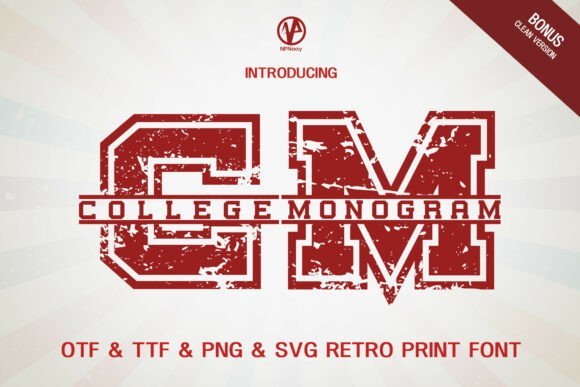
Adding a Touch of Vintage Charm to Your Designs
Have you ever stumbled upon an old college t-shirt or a vintage postcard that sparks a wave of nostalgia and creativity? For designers, moments like these can be a treasure trove of inspiration. The worn-out fonts, the distressed textures, and the overall retro vibe can be the perfect starting point for a new project.
Enter the College Monogram Font, a vintage and grunge-distressed display font that’s sure to add a unique touch to your designs. This font is designed to evoke the feeling of a bygone era, with its intricate details and worn-out look. By incorporating the College Monogram Font into your projects, you’ll be able to add a sense of history and character that’s hard to find with more modern fonts.
For designers looking to add some personality to their work, the College Monogram Font is a valuable tool. Its versatility and unique aesthetic make it perfect for a wide range of projects, from branding and advertising to editorial and lifestyle design.
College Monogram Font Key Features
- Unique Characteristics: Distinctive monogram design, with intricate details and flourishes, making it perfect for creating eye-catching logos and branding materials.
Review of College Monogram Font
I’ve had the chance to work with the College Monogram Font, and I have to say it’s a unique and charming font. ✨ One thing I appreciate is its versatility – it can be used for various purposes, from titles and headings to body text. The font’s monogram-inspired design elements add a touch of sophistication and elegance to any design project.
Here are some of the font’s notable features:
- ✨ Beautiful, intricate design elements that add visual interest
- ✨ Highly customizable, making it suitable for a range of design styles
- ✨ Good legibility, even at smaller font sizes
- ⚠️ May not be the best choice for large blocks of text, as it can be overwhelming
- ⚠️ Can be difficult to read on certain backgrounds or with low contrast
- ⚠️ Limited font weights and styles, which may limit its use in certain contexts
Overall, the College Monogram Font is a great addition to any designer’s toolkit. While it may not be perfect for every project, its unique design and customization options make it a valuable asset for designers looking to add a touch of personality to their work.
Tips for Getting the Most Out of the College Monogram Font
Use the monogram font in combination with other fonts to add visual interest.
Customize the font to fit your brand or college’s style and aesthetic.
The College Monogram Font is ideal for:
College logos and branding
Graduation announcements and invitations
College presentations and reports
Custom designs and merchandise
Alternatives to College Monogram Font
Playfair Display is a luxurious, high-end serif font ideal for formal invitations, luxury branding, and high-end publications. It’s more elegant and refined compared to College Monogram Font, which is more playful and informal. Use Playfair Display when you want to convey sophistication and glamour.
Pacifico is a beautiful, cursive script font that works well for wedding invitations, menus, and other elegant designs. It’s more fluid and expressive than College Monogram Font, which is more geometric and angular. Use Pacifico when you want to add a touch of romance and whimsy to your design.
Can I customize the College Monogram Font to fit my design needs?
Yes, the College Monogram Font can be customized to fit your design needs. Depending on the font’s design and the software you’re using, you may be able to adjust the font’s size, color, and other attributes. However, be sure to check with the college’s branding department to ensure any customizations align with their official branding guidelines.